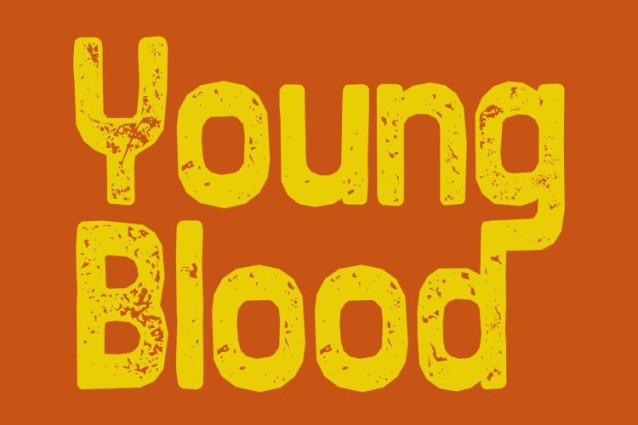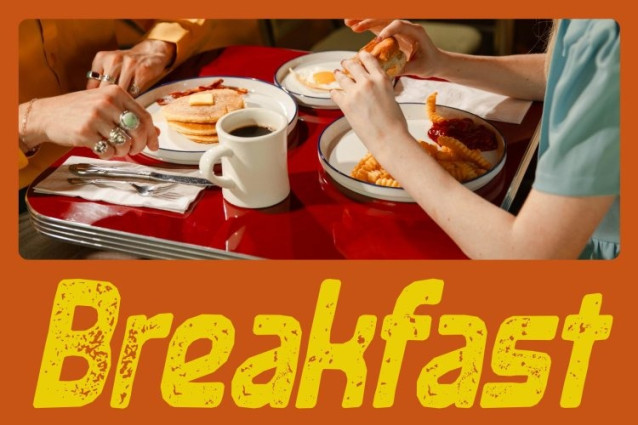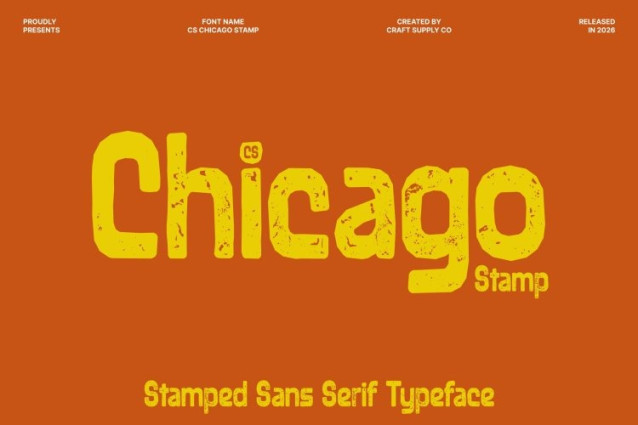
CS Chicago Stamp Font
CS Chicago Stamp Font is a modern display sans serif font that blends futuristic design with nostalgic retro energy. Its sleek geometry and sharp, confident letterforms create a dynamic visual presence inspired by techno culture and digital-era graphics. Enhanced with a stamp effect, the font gains a textured vintage character that introduces a handcrafted, slightly distressed feel while preserving its bold modern structure.
Techno Structure with Textured Character
The font’s geometric forms and smooth flow reflect a strong techno influence, while the stamp effect adds subtle ink-like imperfections and worn edges reminiscent of classic printed materials. This combination creates a compelling contrast between digital precision and analog texture, giving the typeface a distinctive personality.
Bold Visual Rhythm for Modern Design
This font captures a sense of motion, rhythm, and energy through its balanced proportions and confident shapes. The added vintage texture enriches the design with depth, making it visually engaging without compromising clarity or readability.
Perfect for Branding, Posters, and Creative Media
Ideal for branding, logos, posters, music event graphics, and digital campaigns, this font thrives in projects that demand bold style and strong visual identity. Its fusion of retro inspiration, techno aesthetics, and stamp texture creates typography that feels energetic, stylish, and unmistakably modern.